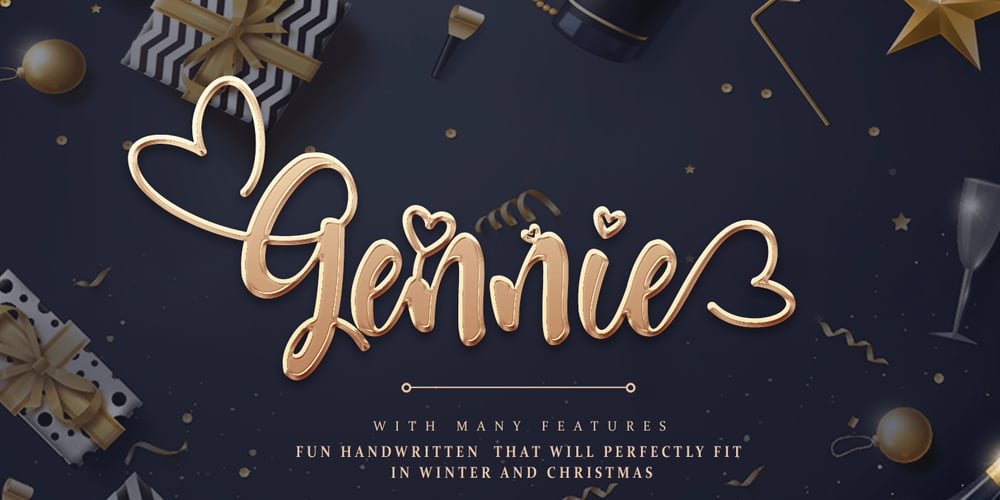
Gennie Font Family was designed by Thomas Aradea and published by Letterara. Gennie contains 1 styles and family package options. Gennie is a fun handwritten font with many features that will perfectly fit in winter and Christmas projects . It can be used for various purposes such as: t-shirts, posters, cards, Christmas and holiday invitations, wedding invites and stationery, logos, etc. Features : – Uppercase & Lowercase – Numerals – Punctuations (OpenType Standard) – Accents (Multilingual characters) – Ligatures and Alternative Style Stylistic Set – Works on PC & Mac – Simple installations – Accessible in the Adobe Illustrator, Adobe Photoshop, Adobe InDesign, even works on Microsoft Word. don’t wait anymore, put it in your shopping basket ๐ and follow me, because there will be many promos!